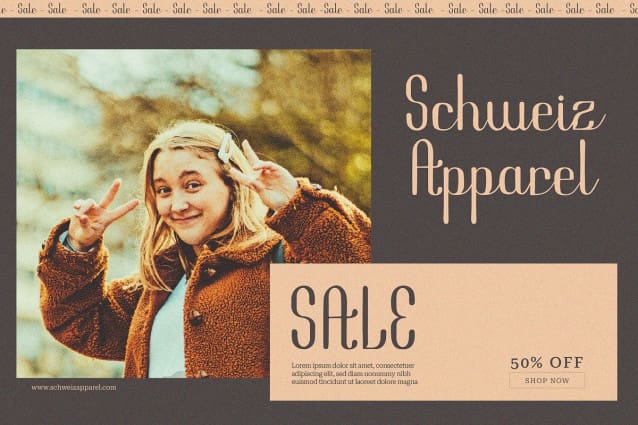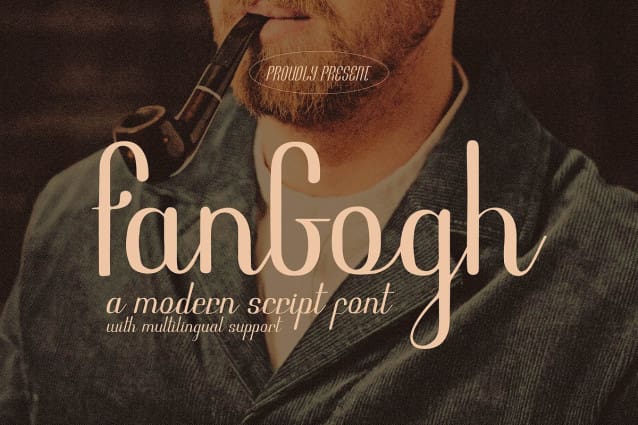
Fangogh Script Font
Fangogh Script Font | Modern Script Font, from Denustudios, suitable for any projects such as: logos, branding projects, homeware designs, product packaging, mugs, quotes, posters, shopping bags, t-shirts, book covers, name card, invitation cards, greeting cards, label, photography, watermark, special events, and all your other lovely projects that need a Modern Script Font taste.